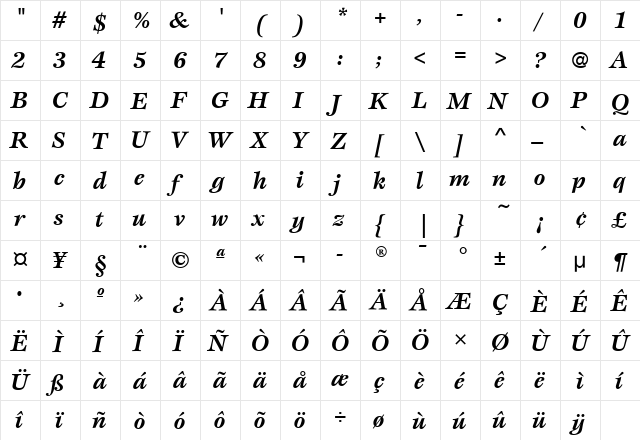
EspritITC Bold Italic
Design Context for EspritITC Typeface
EspritITC is a composed and adaptable typeface that performs quietly and consistently across a wide range of design contexts. The slanted form adds forward momentum and visual energy. The heavy weight commands attention and anchors typographic hierarchies.
Pro Tip: Use EspritITC for emphasis, pull quotes, and subheadings where its slanted energy can add rhythm to the layout.